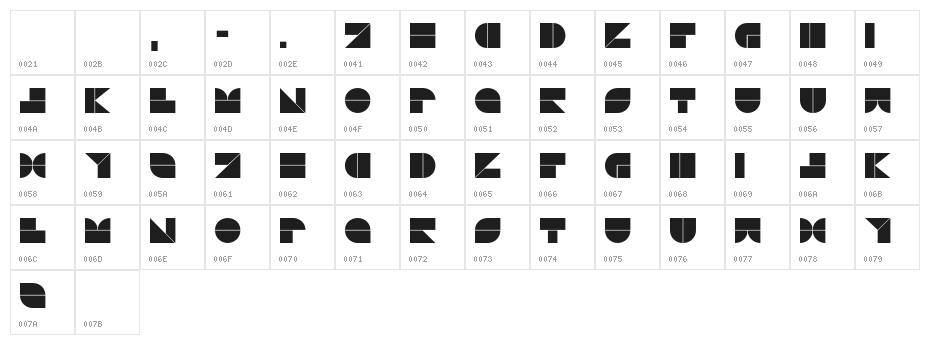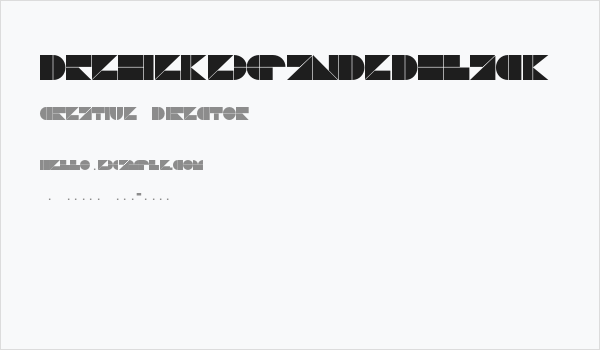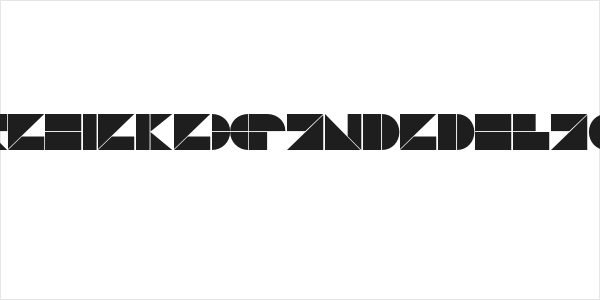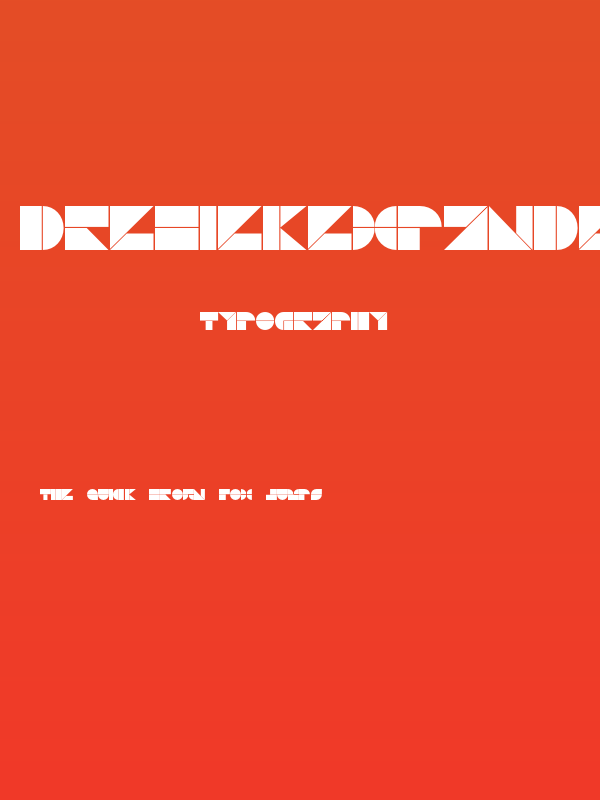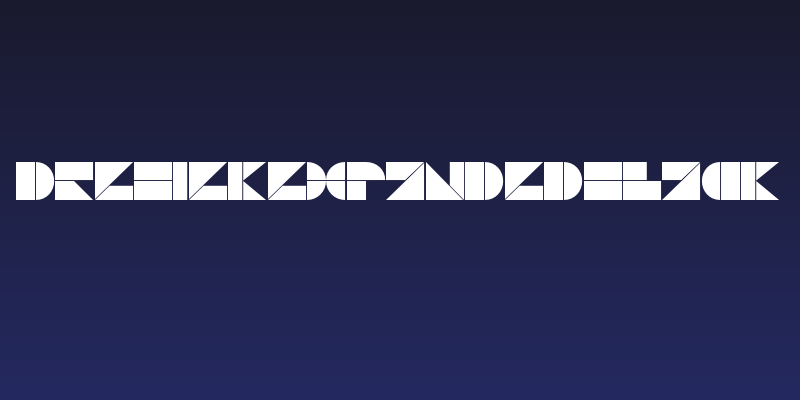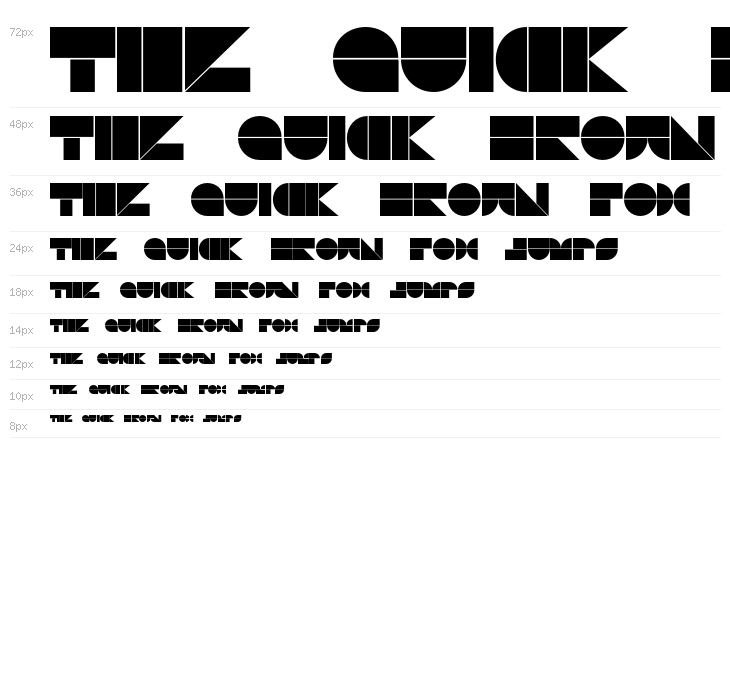
DrebiekExpandedBlack Font
DrebiekExpandedBlack Description
This font features a bold and geometric design with a distinctly modern aesthetic. Each character is composed of solid, block-like shapes that create a sense of strength and stability. The use of sharp angles and straight lines gives it a futuristic feel, while the consistent thickness of the strokes adds to its boldness. The characters are tightly spaced, enhancing the compact and cohesive look of the text. This font is highly stylized, making it ideal for attention-grabbing headlines or logos that require a strong visual impact.